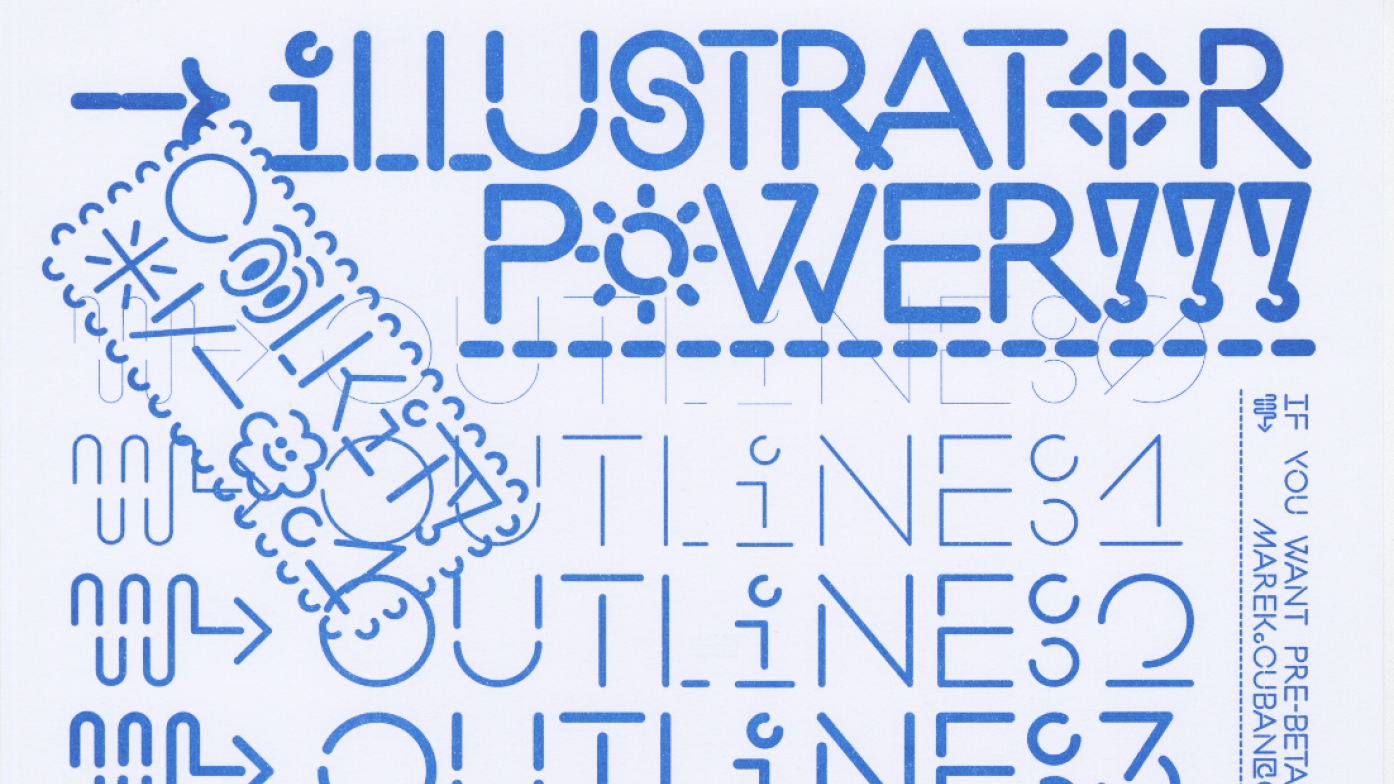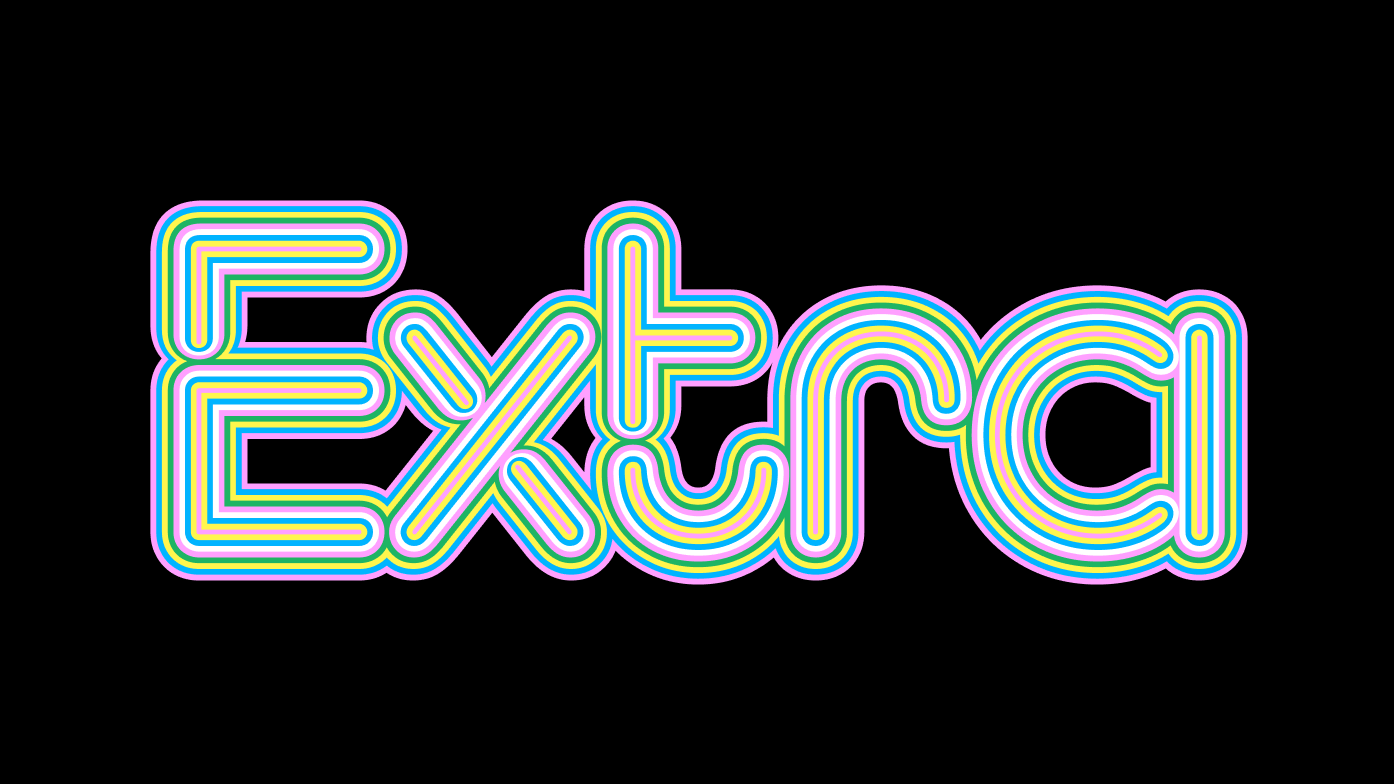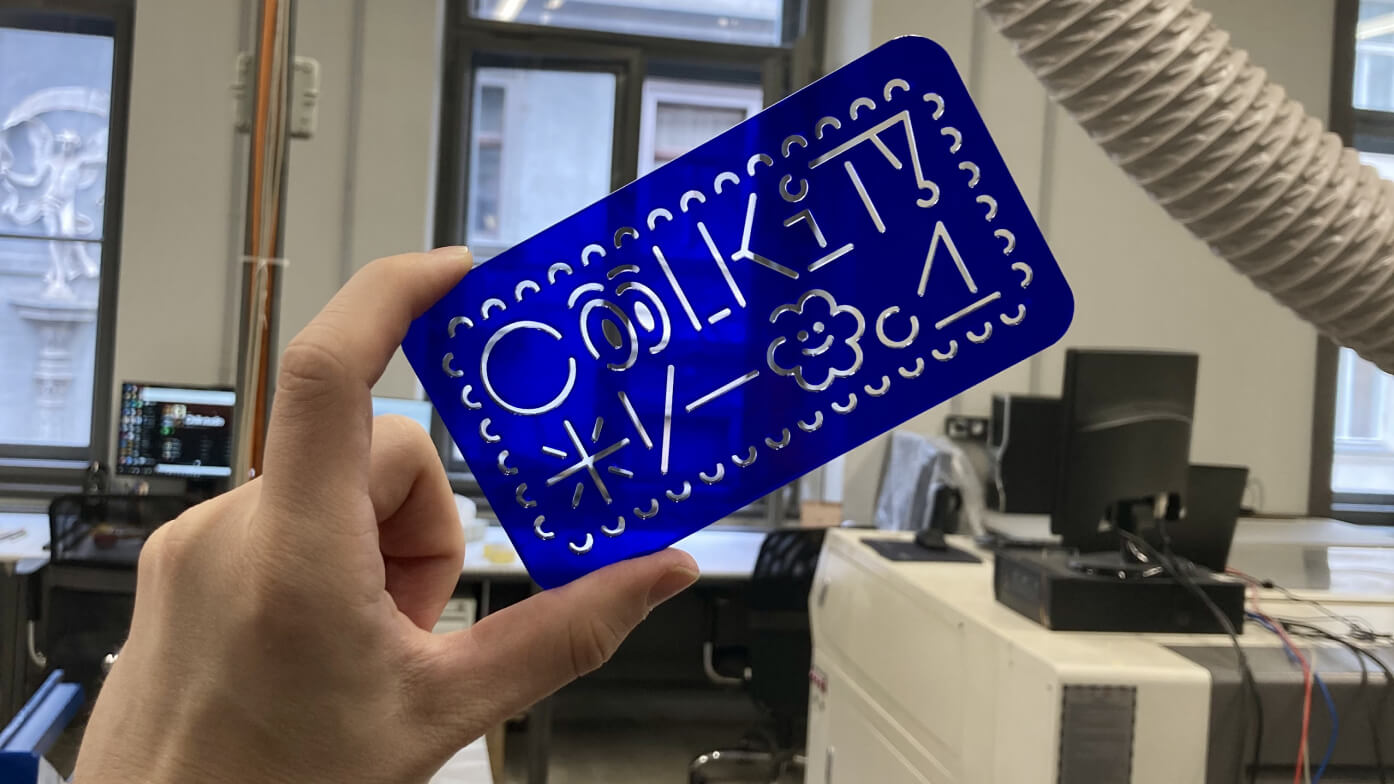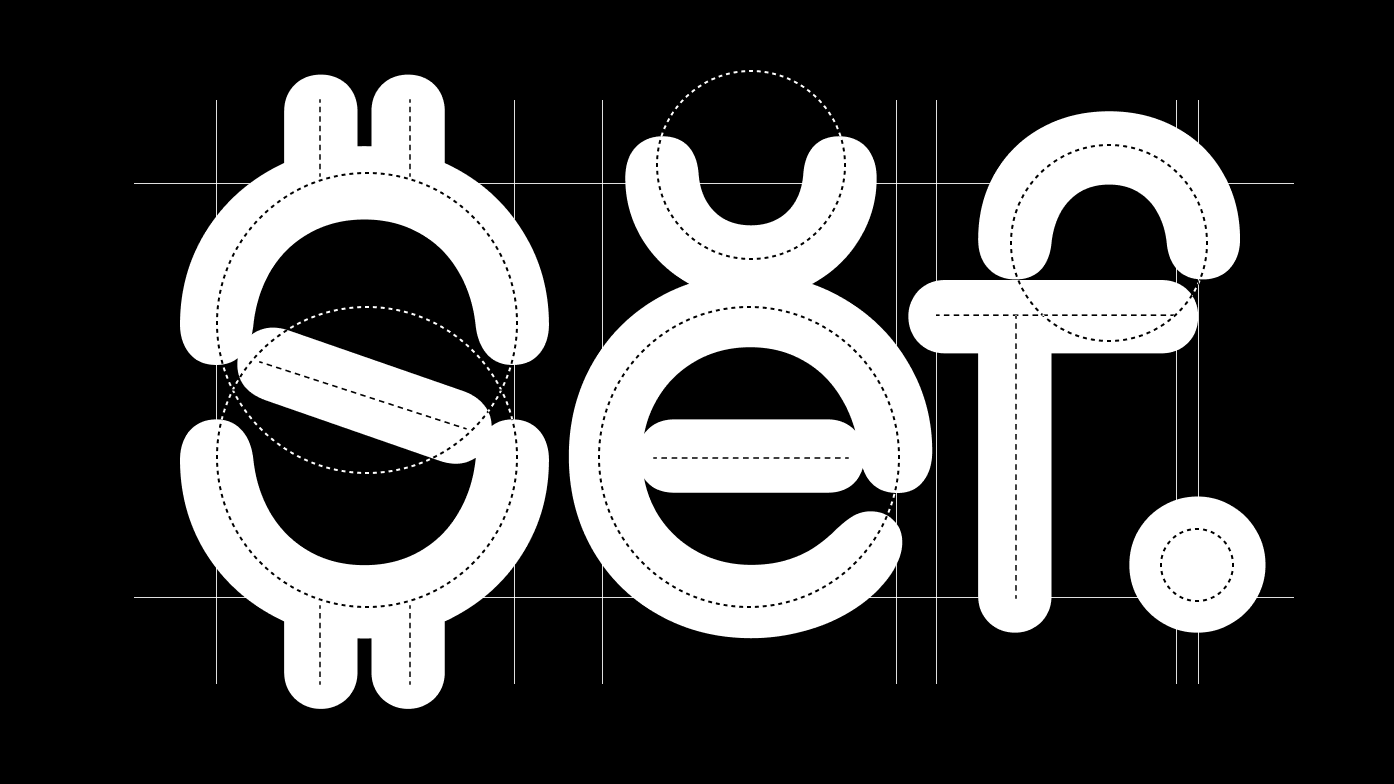
Coolkit Collection: 9 Weights, 9 Styles
Yummy lollipop for your boring days
Total: 20 Stylistic Sets, 8 Figure Sets, 5 Others
Coolkit first saw the light of day in January 2022. It started as a three-week semester project at my Alma mater, UMPRUM (Academy of Arts, Architecture and Design in Prague). Not a single curve was left untouched, but the core idea stayed the same – building weight through the outline.
Coolkit version 0.1. Up to a certain point, as long as your marker isn’t too chunky or bleeding everywhere, Coolkit works like a stencil font. That’s why the outcome wasn’t just a bunch of risograph prints, but a stack of stencils too.
Loads of fun. The slow build-up until POP! Coolkit shares it all with these iconic bubble gums. The typeface construction mechanically grows from thin hairlines, just like an expanding bubble. Source
Why make it complicated when it can be easy? Just segments of circles and lines – that’s what the entire Coolkit is built from.
Let it glow! Summer street nights, neon signs, good drinks, and fun — that’s what Coolkit lives for. Stack a few weights on top of each other and BOOM — instant neon vibes.
This typeface was created as a playful, almost therapeutic experiment (at least at the beginning). A robotic hand uses a ballpoint pen to draw mechanically fragments of circles, which are then assembled into the full Latin alphabet — forming the Coolkit typeface.
Different weights are achieved simply by changing the pen tip diameter. There are no optical corrections or contrast adjustments, the system stays strictly monolinear and stencil-based. When the ink spreads too much, however, the stencil quality begins to disappear.